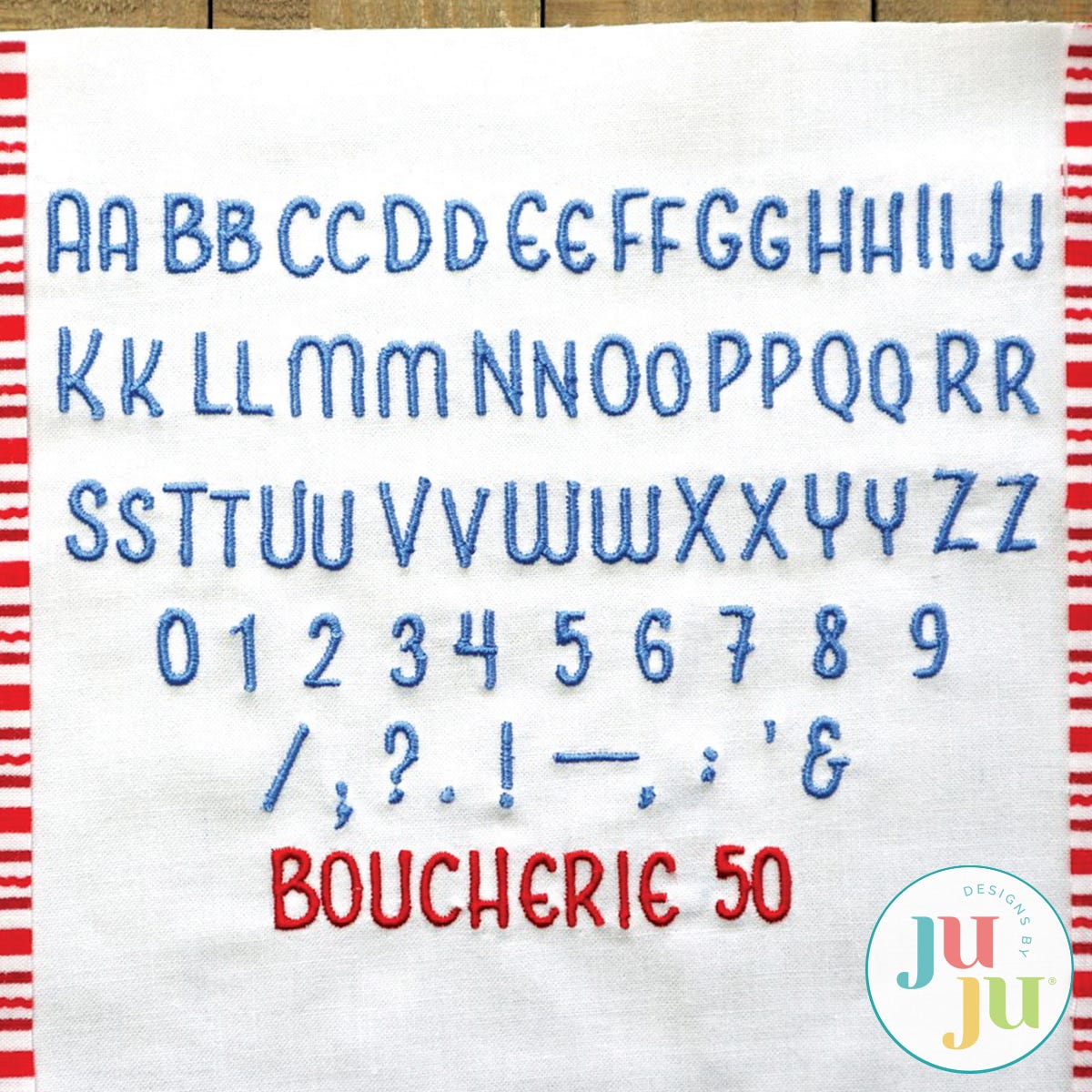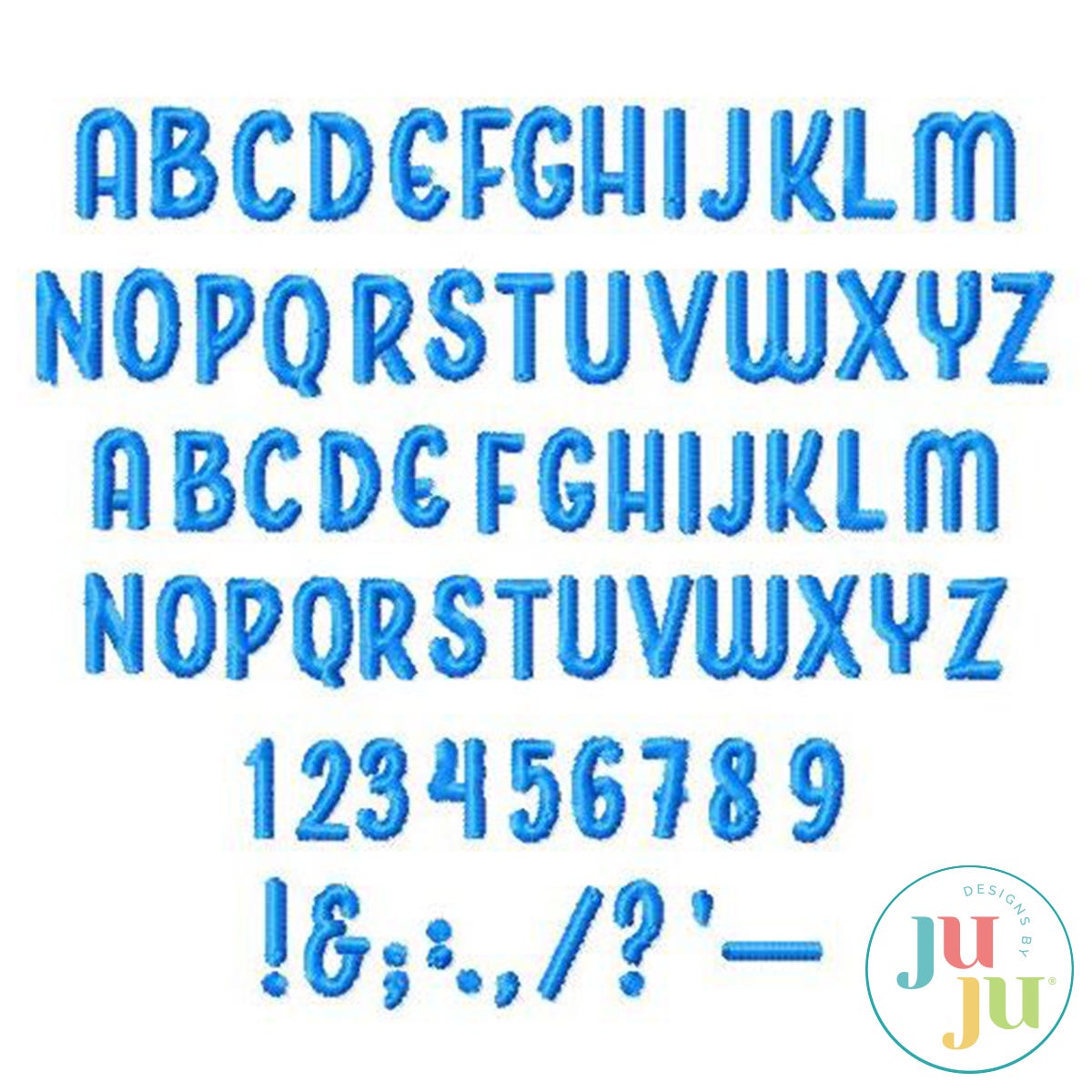
Boucherie is a fun, friendly, fluid font with an upright style that makes it an excellent choice for monogramming and adding a personalized touch to project labels. Designed with no descenders below the baseline except for the letter Q which descends only slightly. The “lowercase” letters are actually slightly smaller versions of the capital letters, creating the look of a two-size monogram. The font includes numbers 0 through 9 and 10 commonly used punctuation marks, and comes in 10 different machine formats, as well as BX format for Embrilliance users.